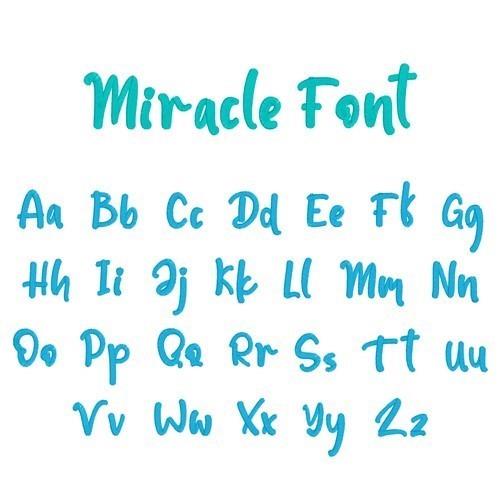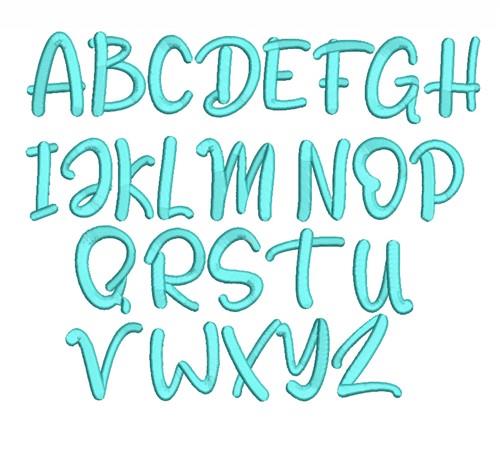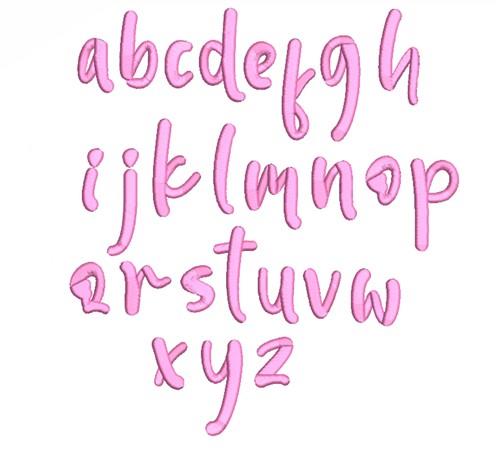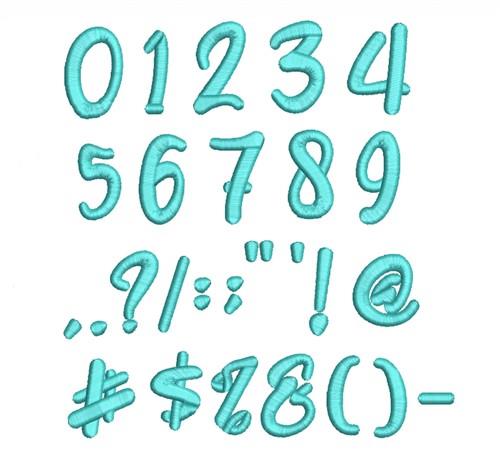
Maya Kreations is happy to present Miracle Font machine embroidery font which has Playful decorative script machine embroidery font great for vibrant designs on cushions or tote bags. 'Miracle' shines in bold purple with pink accents, creating a lively look. Available in PES, DST & 6 other formats. included. If you would like to view more embroidery fonts and alphabets please search our embroidery fonts page.